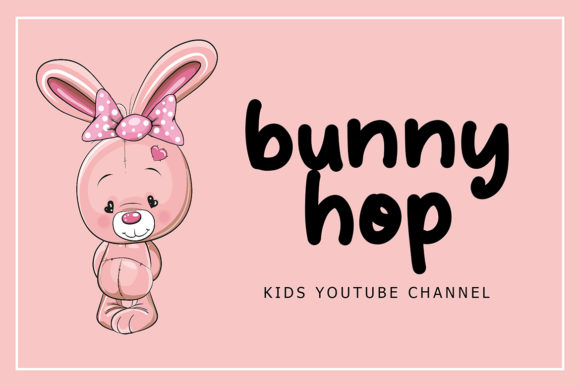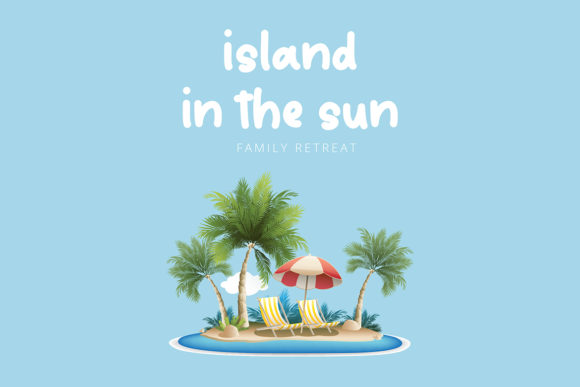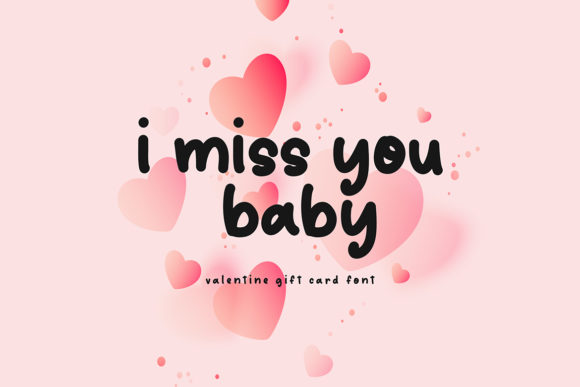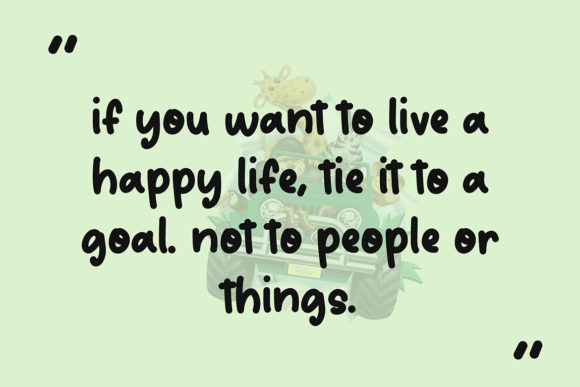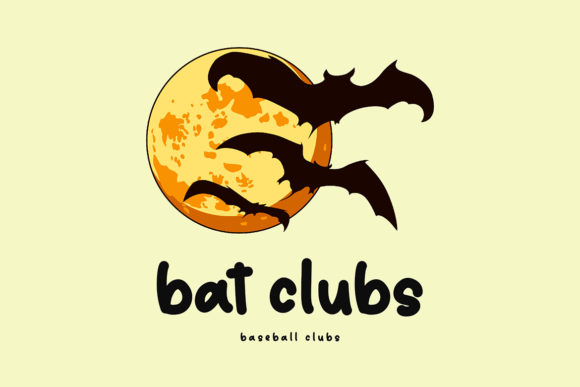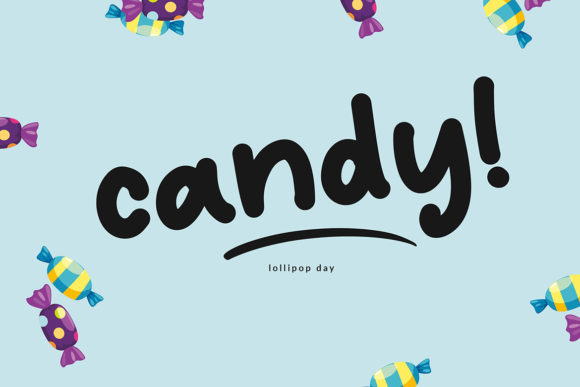
Introduction to Sifago Font
Who hasn’t felt the excitement of starting a new creative project? The blank page, the endless possibilities, and the thrill of bringing a new idea to life. For designers, this moment is a constant source of inspiration, and the right font can be the key to unlocking a truly unique and captivating design.
When it comes to creating a cheerful and inviting atmosphere, the Sifago Font is a valuable resource that can elevate any project. This sweet and cheery handwritten font is perfect for kids’ projects, school assignments, or any creative endeavor that requires a touch of warmth and friendliness.
Key Features of Sifago Font
- Unique, hand-drawn design with a transparent background, ideal for creative projects.
- Includes multiple font styles and weights, allowing for versatility in various design applications.
- High-resolution design (300 DPI), suitable for print and digital applications.
- Perfect for use in logos, branding materials, and other design elements where a creative, hand-drawn look is desired.
- Supports a wide range of languages, making it a great option for international design projects.
Honest Review: Sifago Font
I recently had the chance to work with the Sifago Font, and I must say it’s been a game-changer for my creative projects. This free download has become a go-to design resource for me, offering a level of quality that’s hard to match.
- ✨ High-quality design: The Sifago Font has a crisp, clean look that elevates any project.
- ✨ Versatility: It’s perfect for a wide range of creative projects, from logos to brochures.
- ✨ Transparent background: This feature makes it easy to use on any design surface.
- ⚠️ Limited customization options: While the font is high-quality, it’s not as customizable as some other options.
- ⚠️ Not ideal for complex typography: The Sifago Font is best suited for simple, straightforward typography.
Overall, I’m thoroughly impressed with the Sifago Font. Its high-quality design, versatility, and transparent background make it a valuable addition to any designer’s toolkit. While it may have some limitations, I believe it’s well worth the free download. I’ve already used it in several projects, and I’m confident it will remain a staple in my design resources for a long time to come.
To get the most out of the Sifago Font, be sure to use it in conjunction with a transparent background to create a sleek and modern design. You can also experiment with different font sizes and styles to add visual interest to your design.